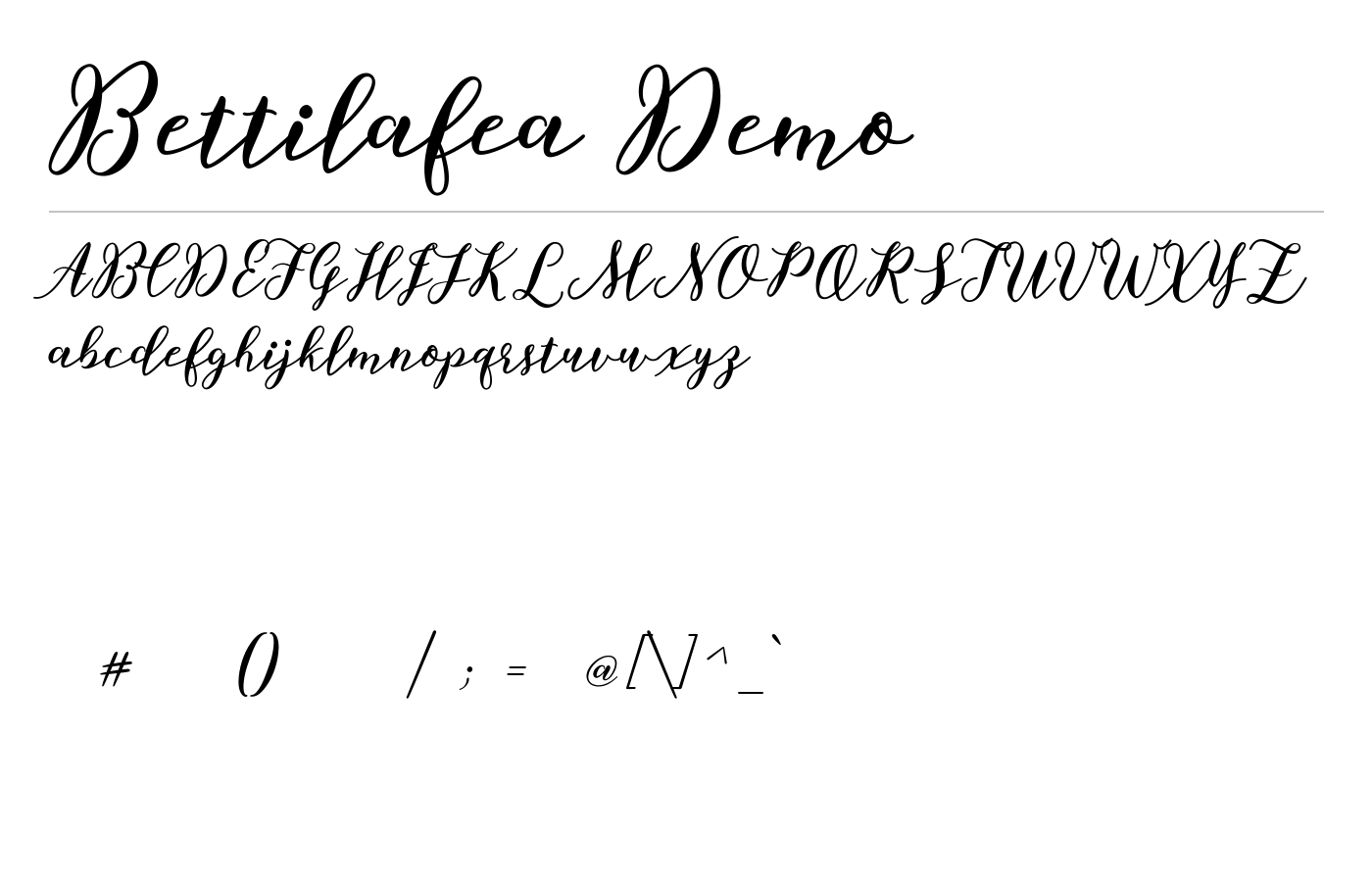
Bettilafea Demo is an elegant script font with flowing, graceful strokes and a light, delicate weight that conveys a refined, sophisticated feel. Its handwritten style with smooth curves and distinctive letterforms makes it ideal for invitations, branding, and any design seeking a personal, stylish touch. This font works especially well for luxury or formal projects where beauty and subtlety are key.
Bettilafea Demo Font